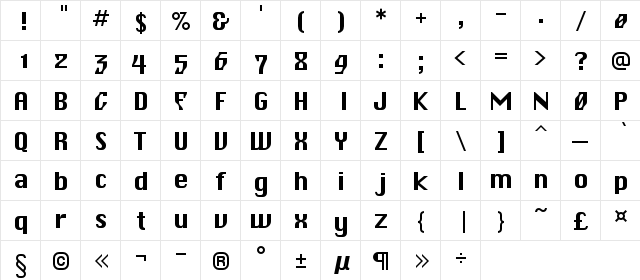
Blagovest-Seven Regular
Design Context for Blagovest-Seven Typeface
Blagovest-Seven takes a measured approach to typography — its balanced proportions and neutral character make it a reliable workhorse for both digital and print work.